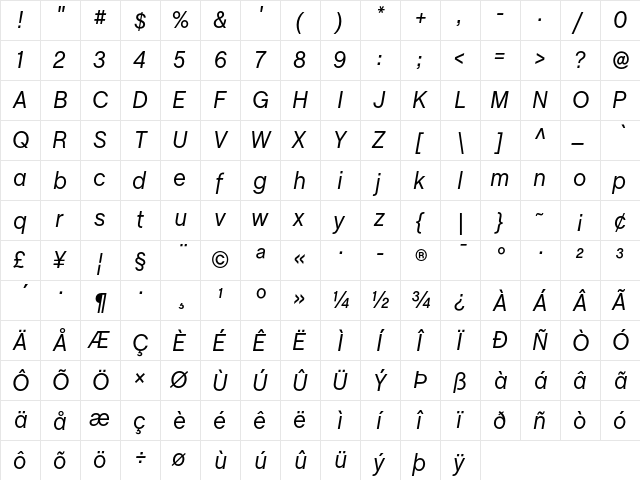
ChaletBook Italic
| Designer | House Industries |
Design Context for ChaletBook Typeface
ChaletBook takes a measured approach to typography — its balanced proportions and neutral character make it a reliable workhorse for both digital and print work. The dynamic lean of this cut emphasises speed and emphasis in any layout.
Pro Tip: Use ChaletBook for emphasis, pull quotes, and subheadings where its slanted energy can add rhythm to the layout.